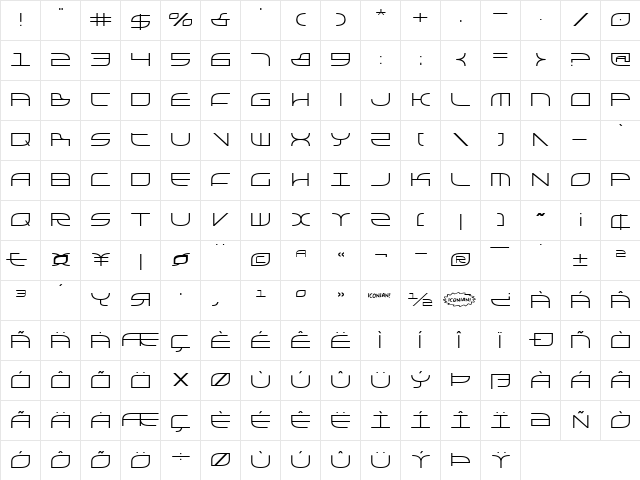
Galga Regular
Design Context for Galga Typeface
Galga offers clean, dependable letterforms without strong stylistic allegiance, making it a practical choice for designers who need flexibility.